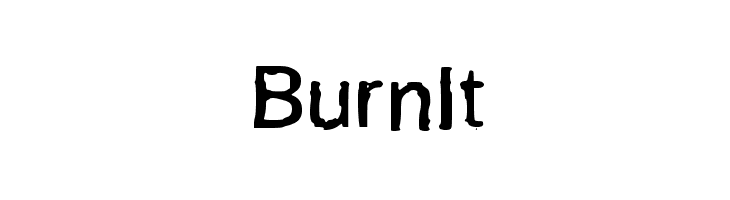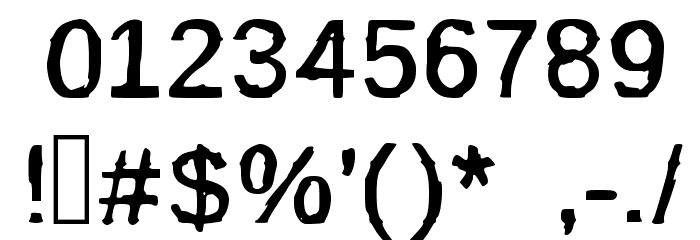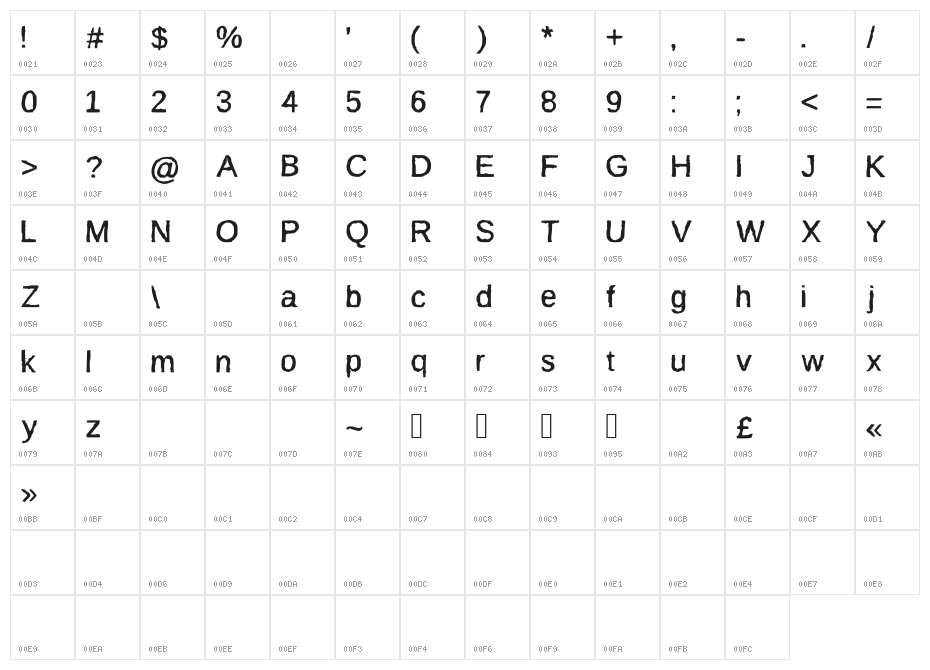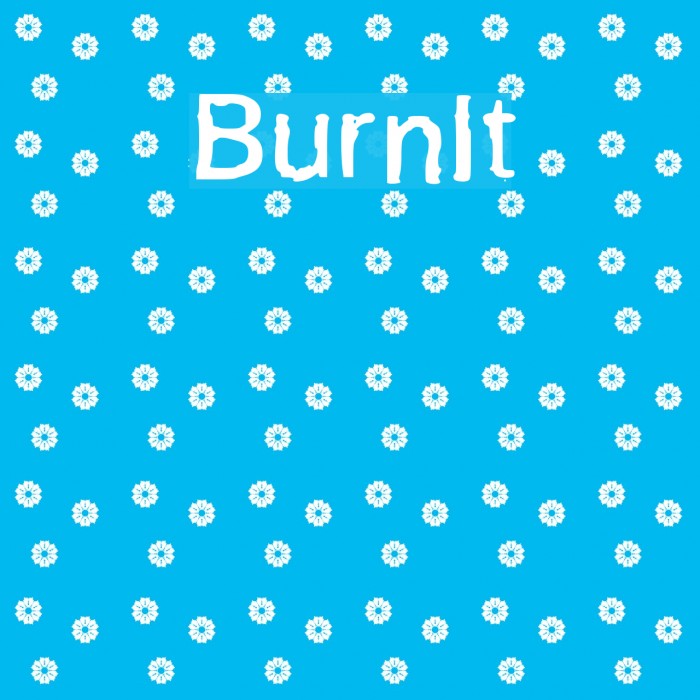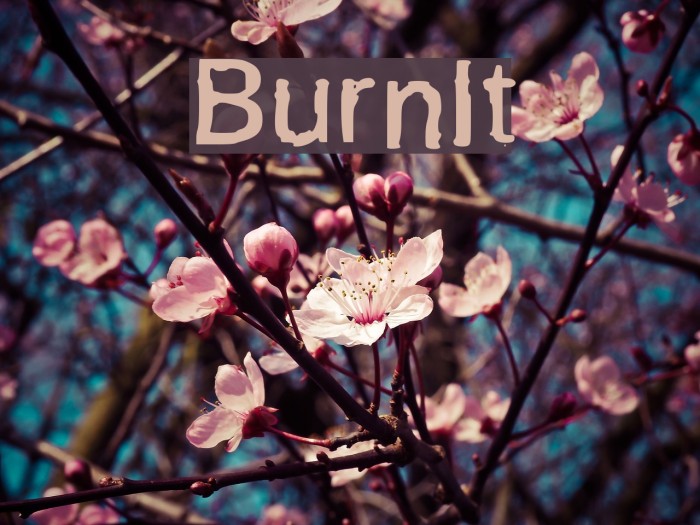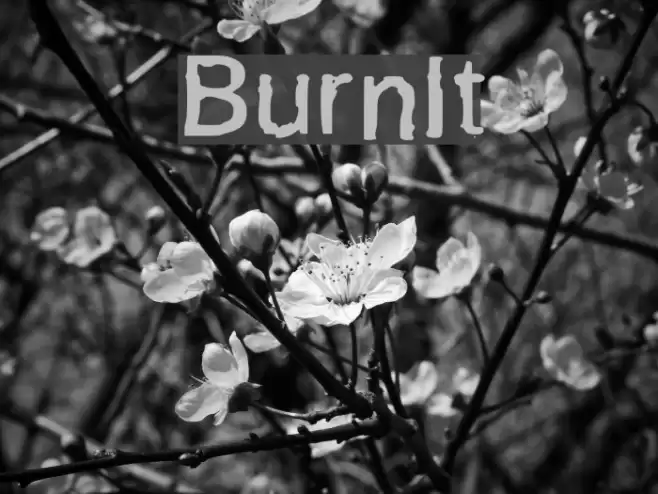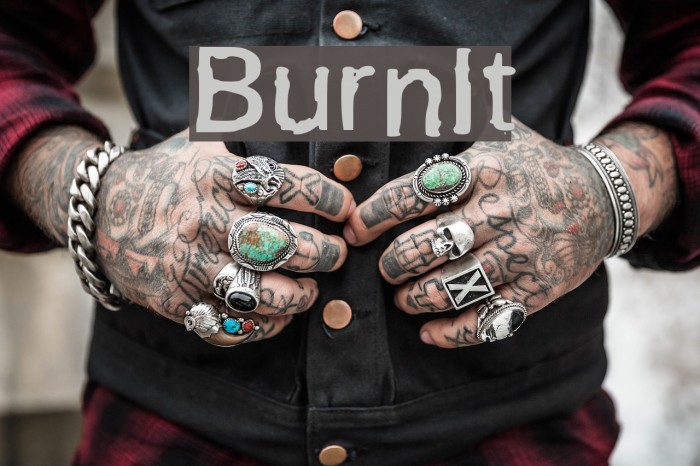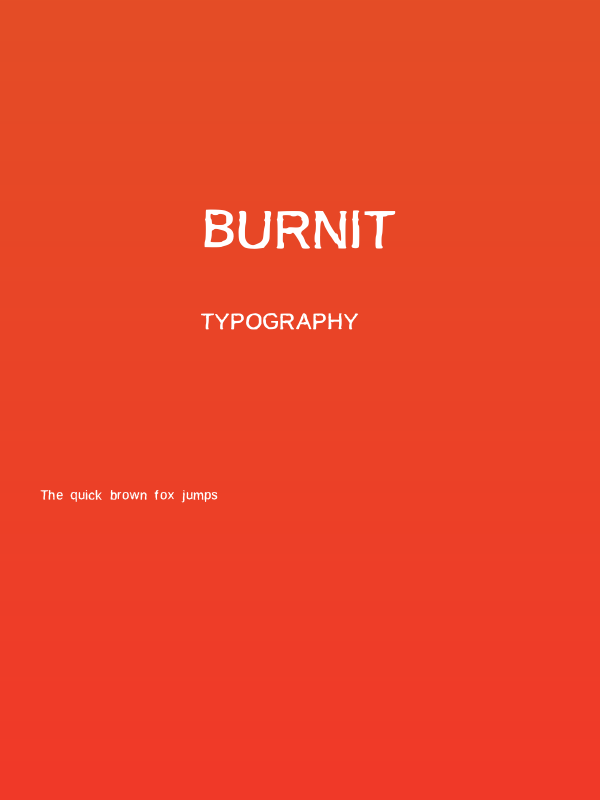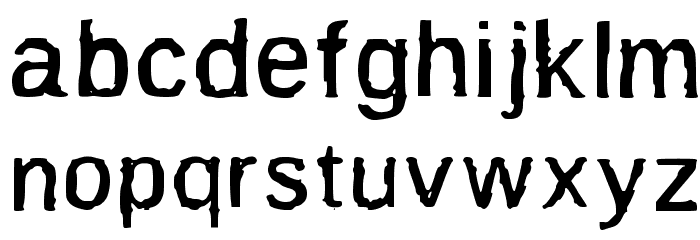
BurnIt Font
BurnIt Description
This font exhibits a rugged, distressed style that mimics the appearance of letters that have been burned or eroded over time. The characters have an uneven, hand-drawn quality with irregular edges and varying stroke thickness, giving it a raw and organic feel. The uppercase and lowercase letters maintain a consistent height, while the numbers and special characters follow the same distressed aesthetic. This font is ideal for projects that require a gritty, rebellious, or vintage look, such as posters, album covers, or themed event invitations.
| Proposed Projects | Posters, album covers, themed event invitations, vintage designs. |